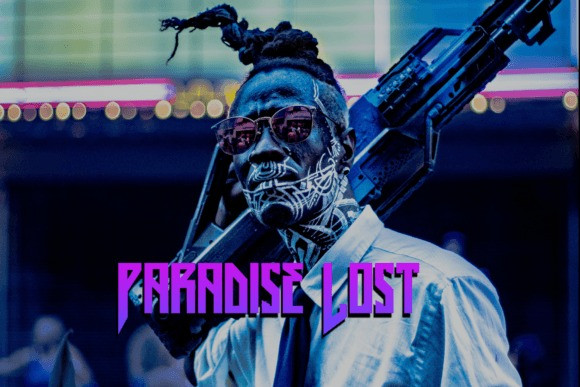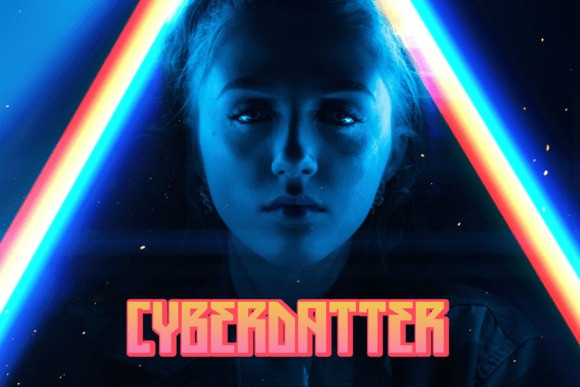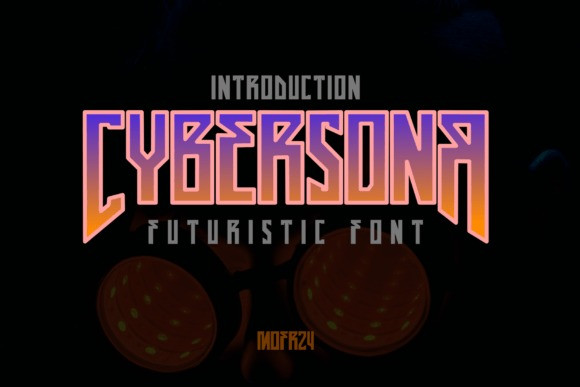
Cybersonr Font
Cybersonr Display Font is inspired by the futuristic style and it has bold, strong, and sharp edges. This unique display font perfectly matches your futuristic creative craft themes like action, mecha, or cyberpunk. Cybersonr also has a different shape, size, and design between uppercase and lowercase, which will make it easier for you to craft and make amazing work!